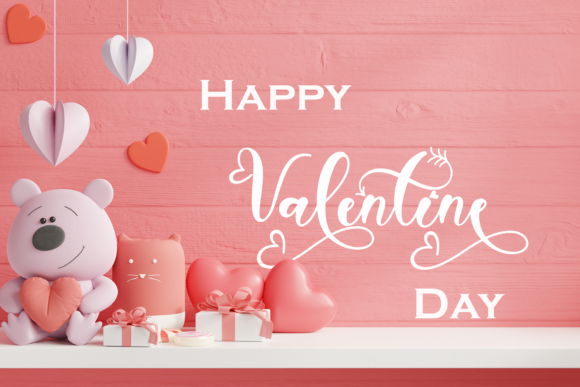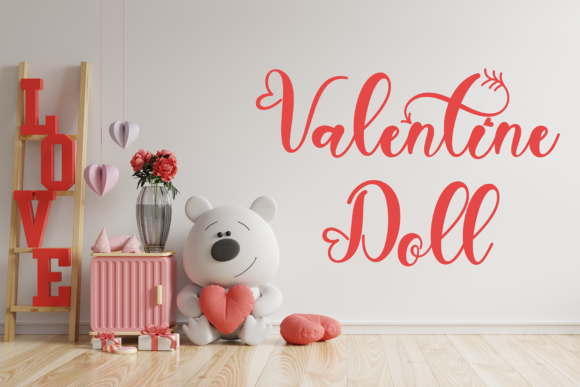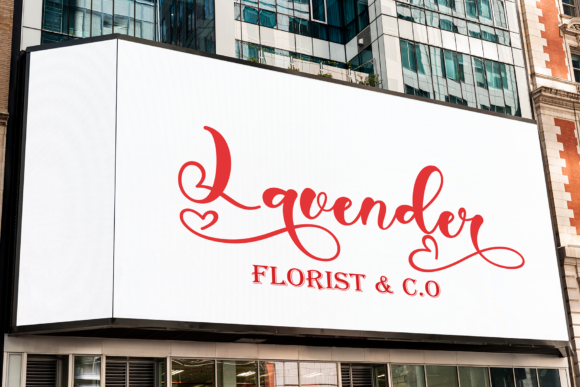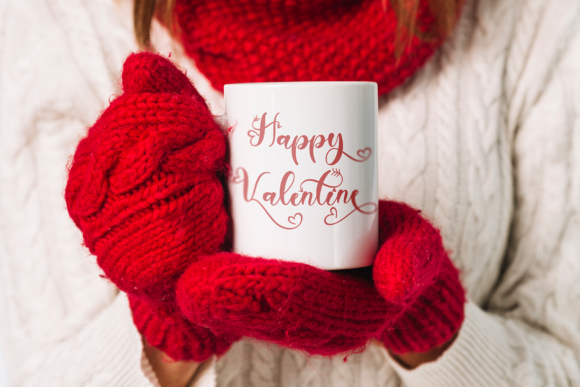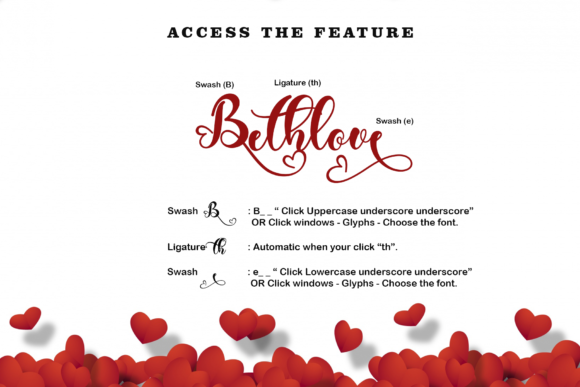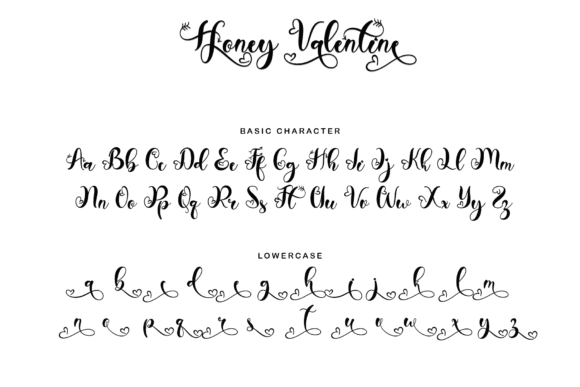
Get Ready to Swoon Over the Honey Valentine Font
Have you ever stumbled upon a font that makes your heart skip a beat? For designers and creatives, finding the perfect font can be a game-changer. It’s like discovering a hidden gem that elevates your work from ordinary to extraordinary. For me, that moment came when I laid eyes on the enchanting Honey Valentine Font.
This beautiful Calligraphy script font is a Valentine’s Day dream come true. Perfect for wedding invitations, engagement announcements, and romantic photography, Honey Valentine Font is a must-have for any designer looking to add a touch of elegance and whimsy to their work. With its ease of use and PUA encoding, you’ll have access to all the glyphs and swashes you need to create stunning designs.
Honey Valentine Font Key Features
- Font Style: Script, handwritten font with a unique and elegant feel.
- Unique Characteristics: Features a distinctive, flowing script with intricate details and subtle texture, making it perfect for invitations, quotes, and other decorative text.
Honey Valentine Font Review
First off, I think the Honey Valentine Font has a lot going for it. ✨ The flowing curves and soft lines give it a whimsical, romantic feel that’s perfect for feminine or vintage-inspired designs. The font is highly legible, making it suitable for body text as well as headings.
Another great thing about the Honey Valentine Font is its versatility. ✨ It comes in a range of weights and styles, from light to bold, allowing you to mix and match to suit your design needs. Additionally, the font is highly customizable, with options for ligatures, swashes, and ornaments that can add an extra layer of personality to your designs.
- ⚠️ While the font is highly legible, it may not be the best choice for headlines or titles that require a bold, eye-catching impact.
- ⚠️ The font’s delicate lines may not be suitable for designs that require a strong, modern aesthetic.
- ⚠️ Some users may find the font’s customization options overwhelming, particularly if they’re not familiar with font design.
Overall, the Honey Valentine Font is a solid choice for designers who want a beautiful, feminine font that’s highly customizable. While it may have some limitations, its versatility and charm make it a great addition to any design toolkit.
Alternative Fonts to Honey Valentine Font